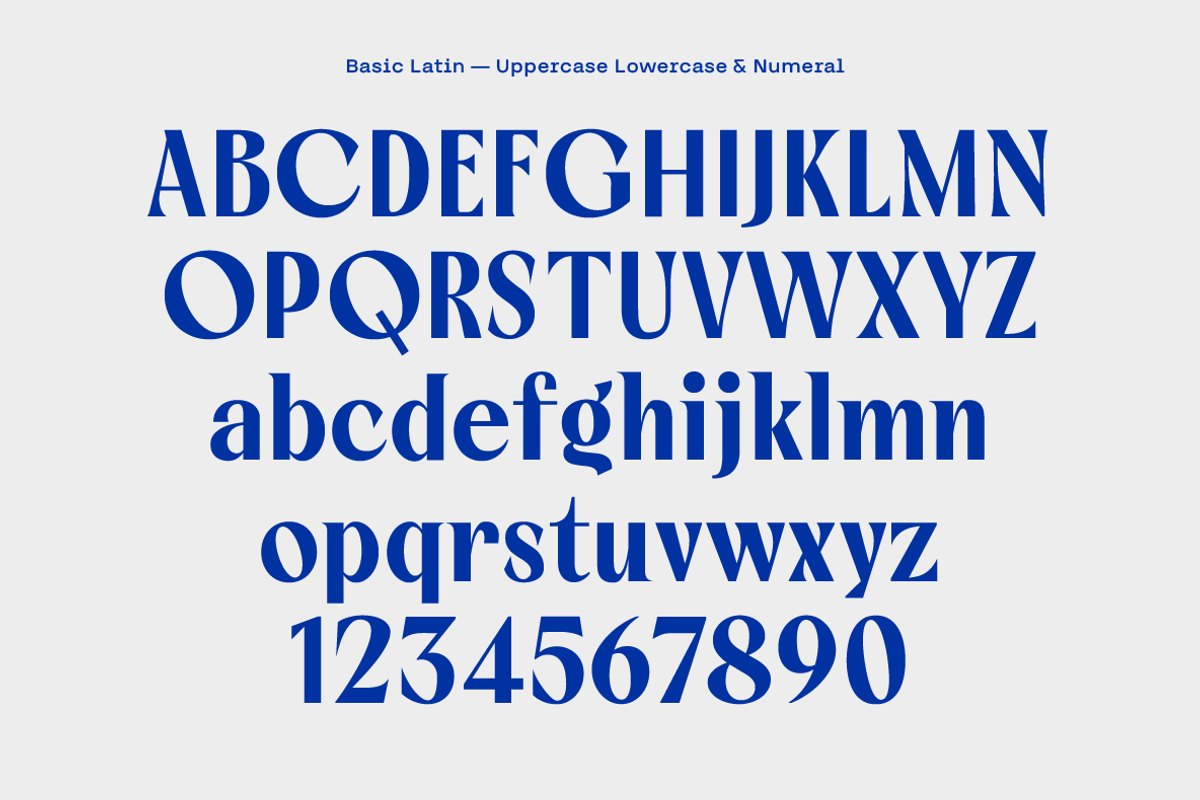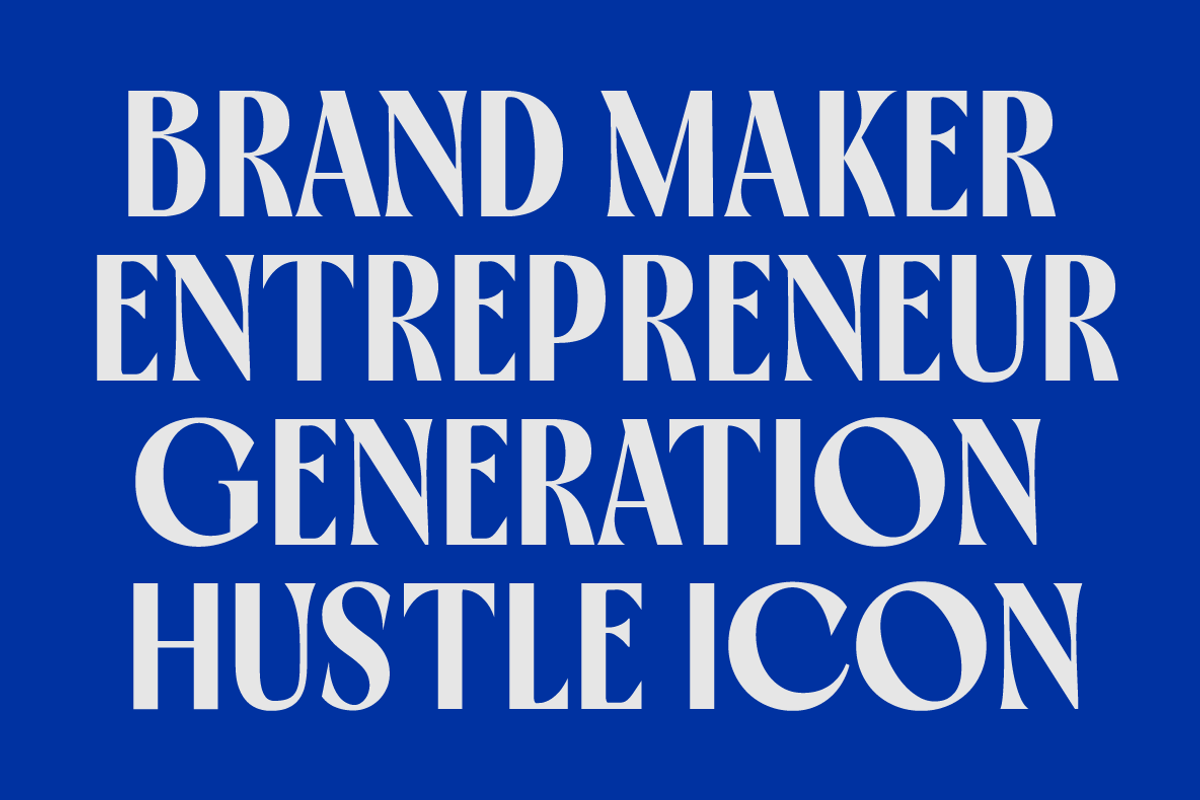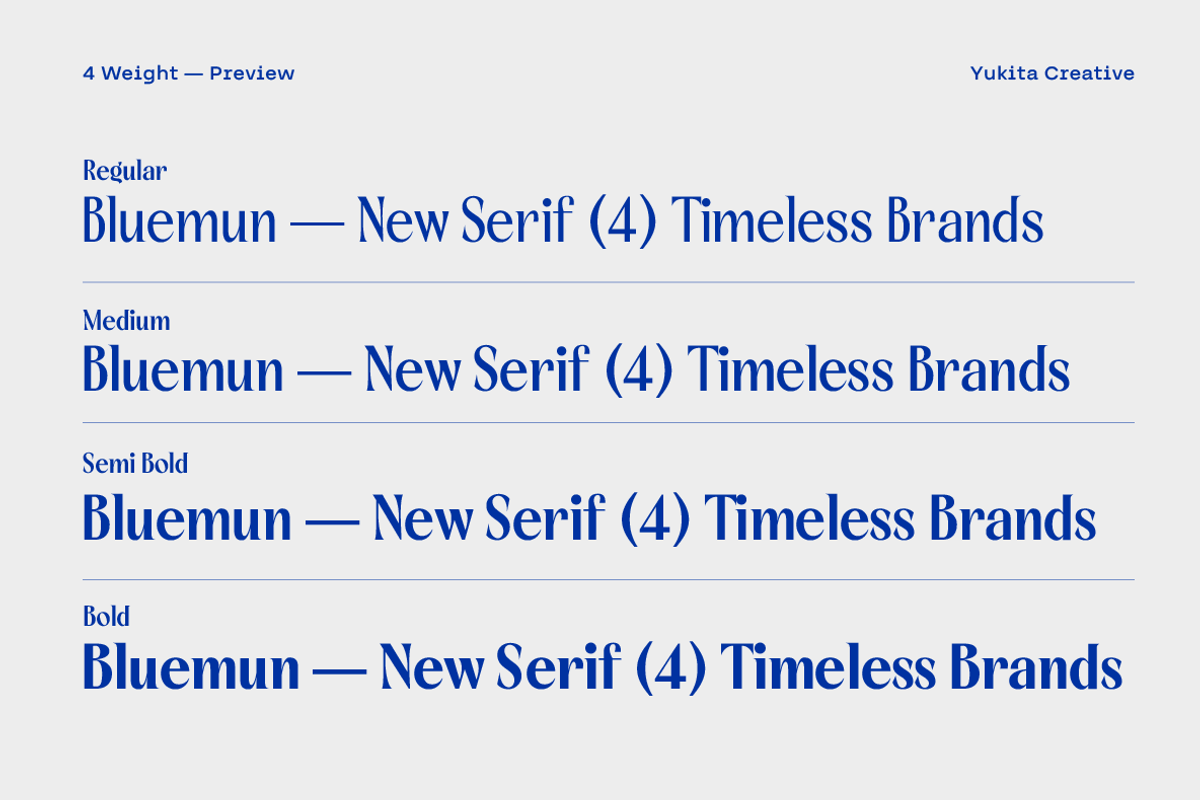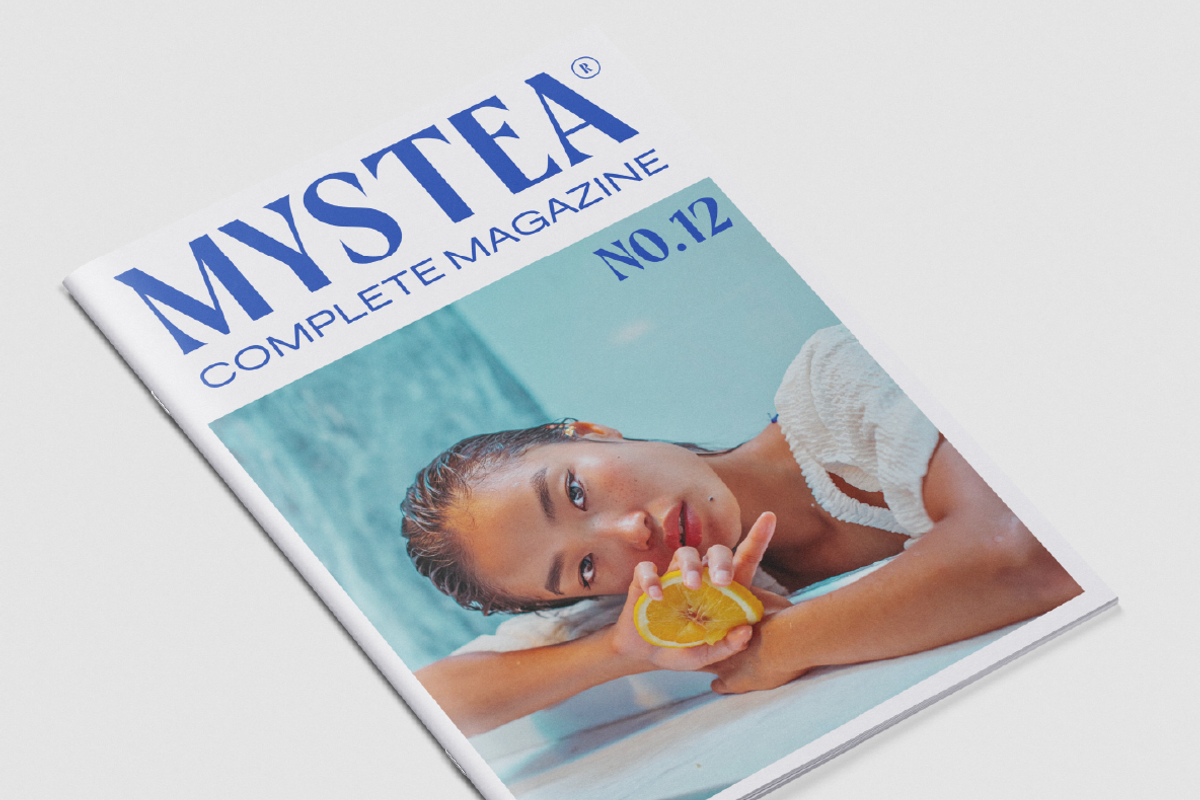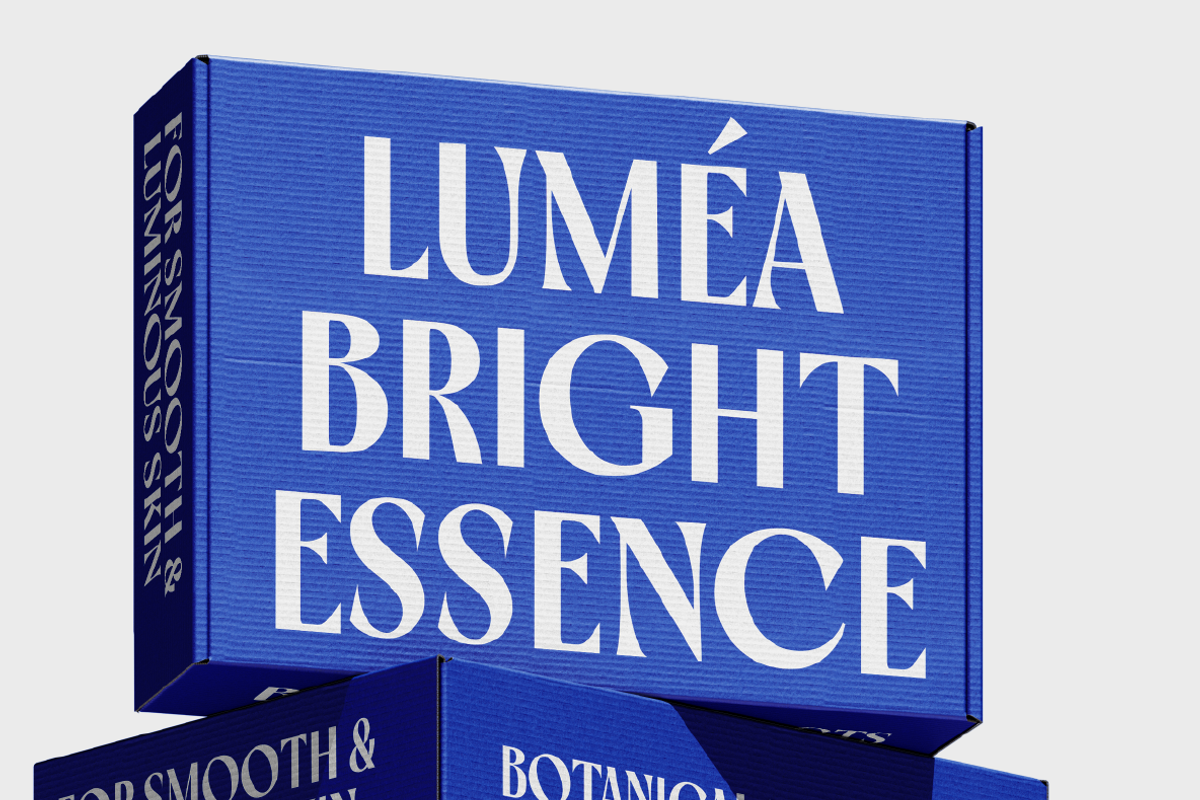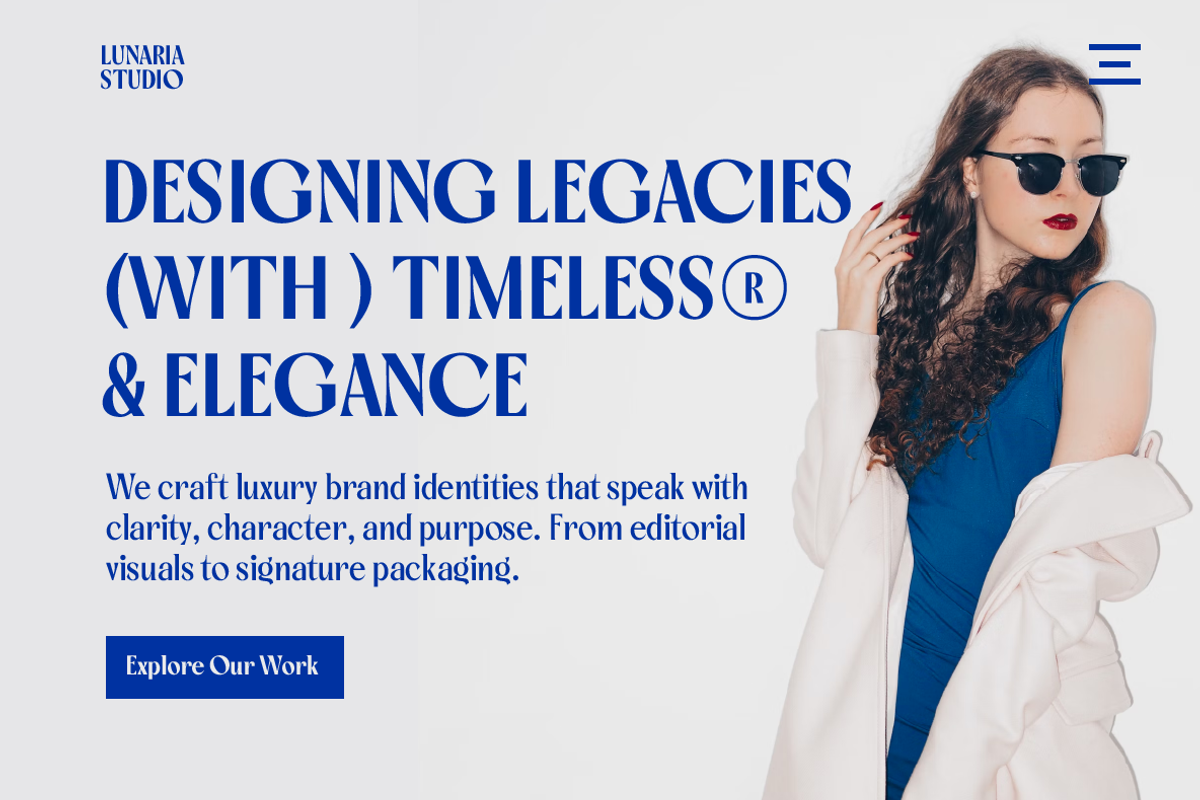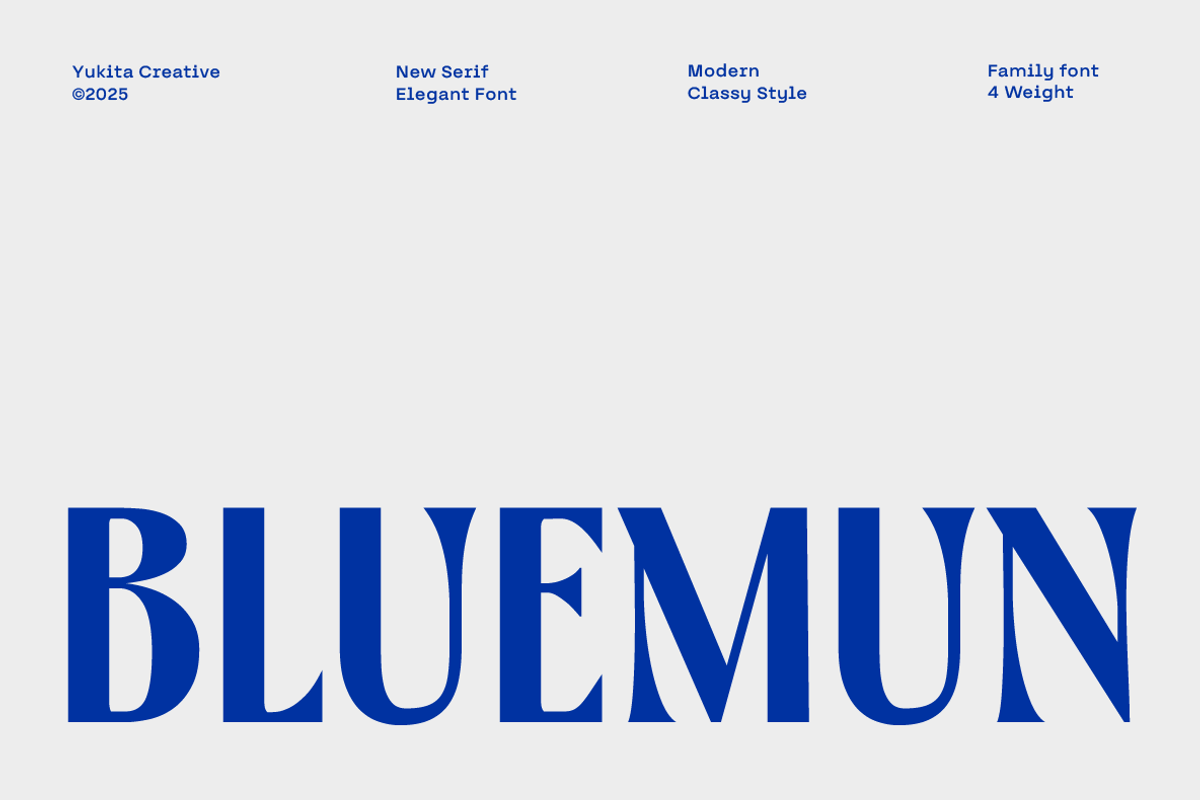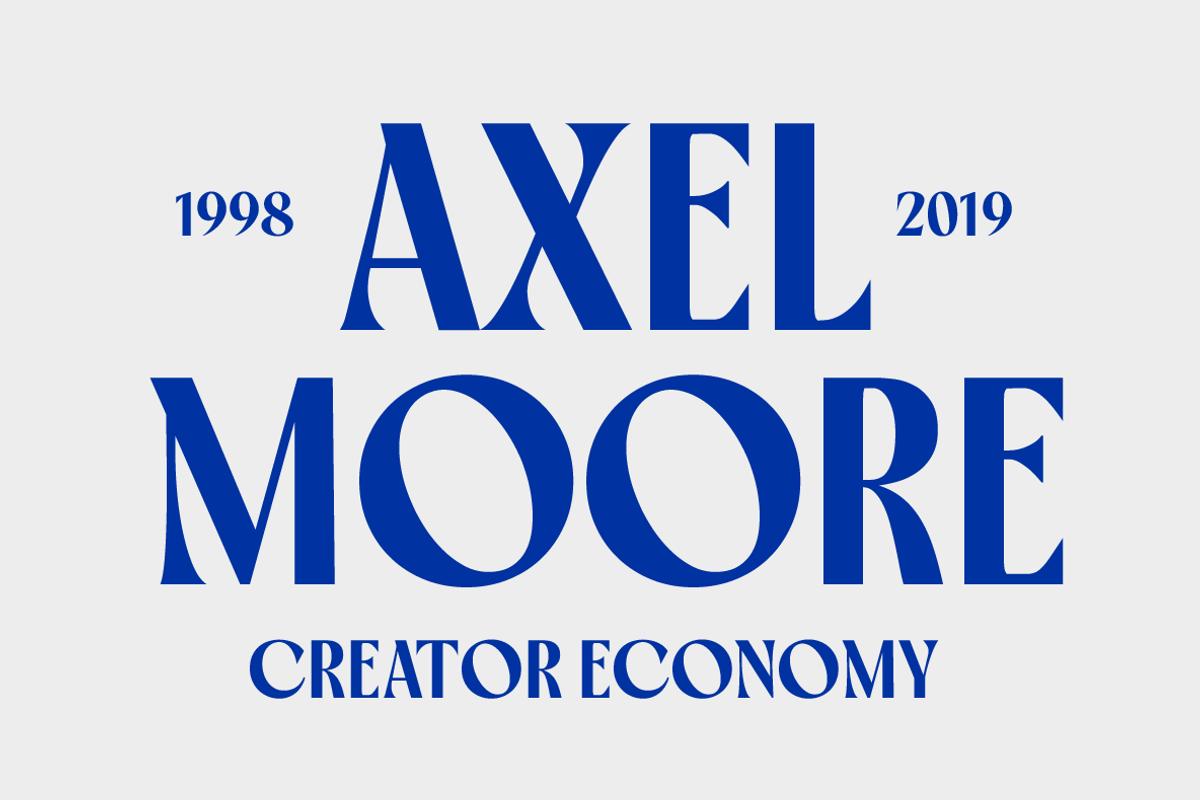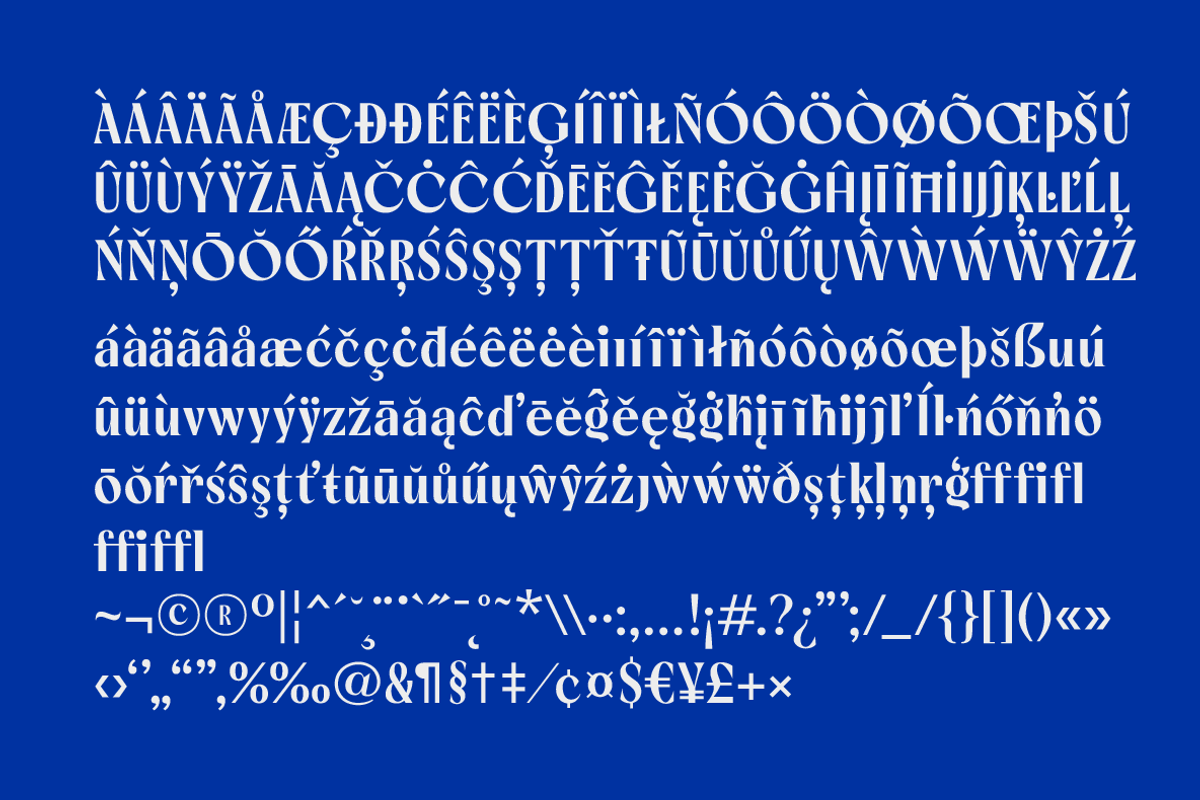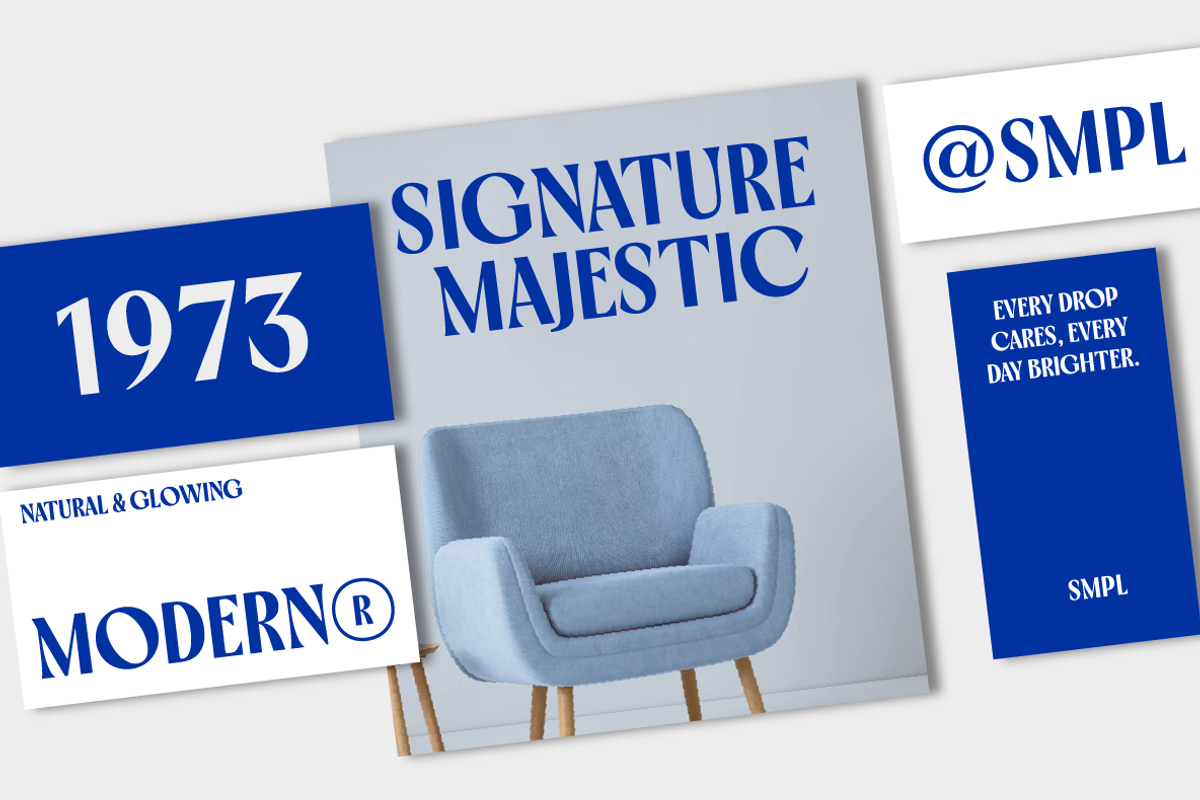
Bluemun – Timeless Serif
Bluemun Serif is a refined and elegant serif font that blends simplicity with sophistication. Designed with clean lines and graceful curves, it brings a timeless aesthetic to your modern design needs. Whether you're working on digital or print projects, Bluemun Serif ensures your typography stands out with style and clarity.
Available in 4 versatile weights — Regular, Medium, SemiBold, and Bold — this typeface is ideal for creating eye-catching headlines, professional branding, stylish invitations, and polished editorial layouts.
- Elegant serif design with clean, smooth details
- Great readability for both display and text use
- Multilingual support (Western, Central, and Eastern European languages)
- Optimized for both print and web
- Branding and logo design
- Wedding, fashion, and lifestyle invitations
- Editorial layouts, magazines, and books
- Website headers and hero sections
- Product packaging and label design
- Classy and minimal social media graphics